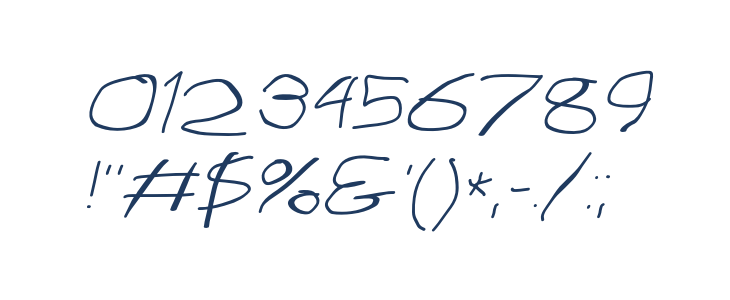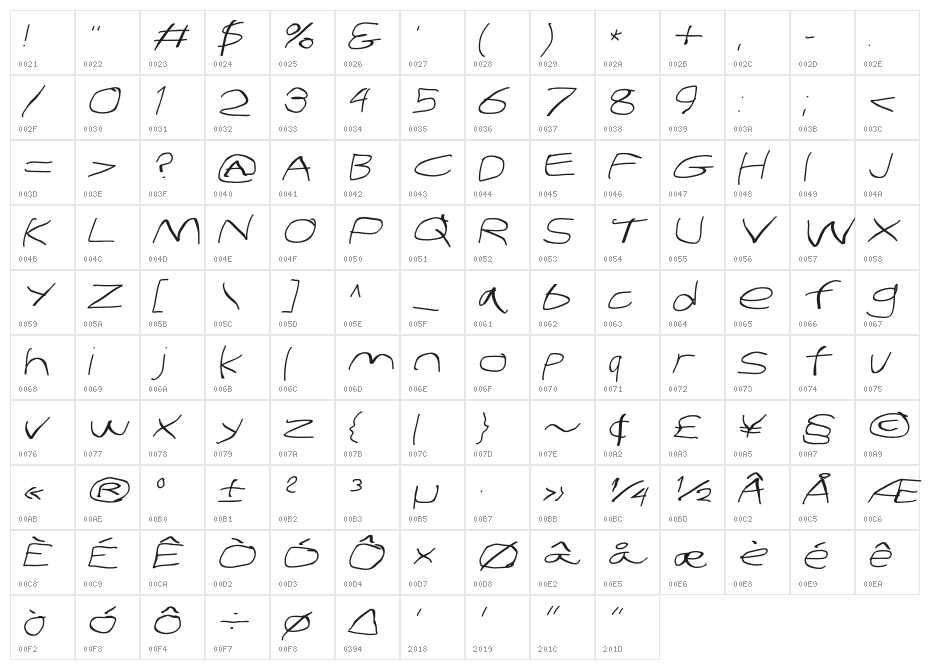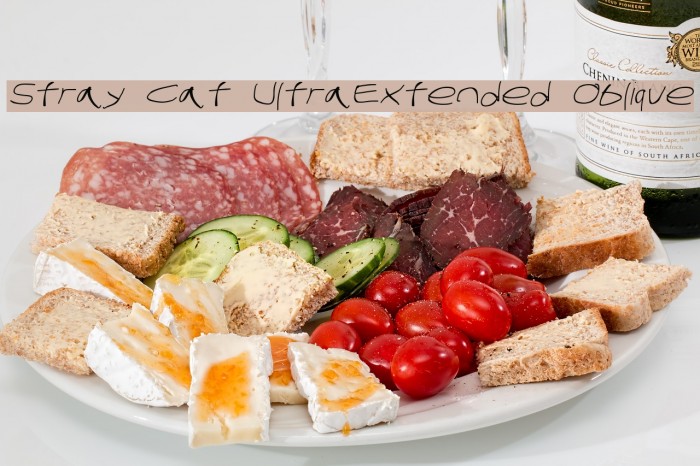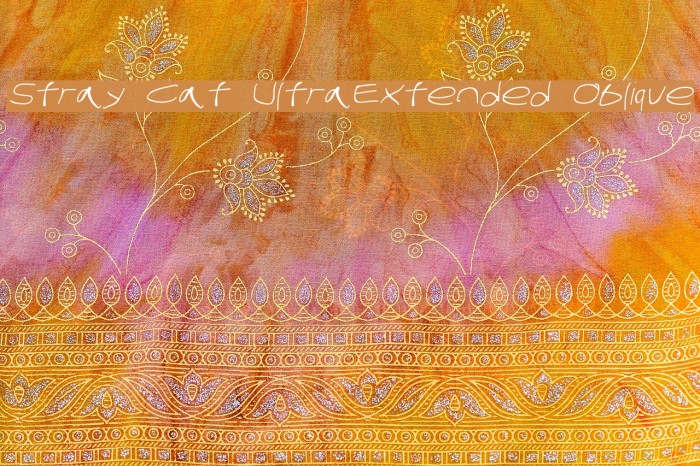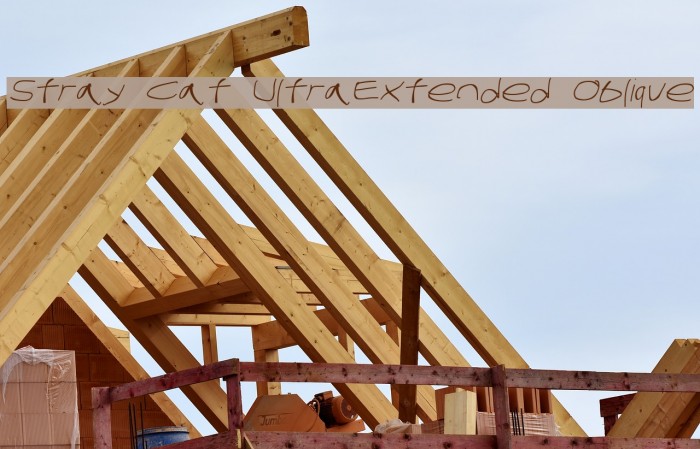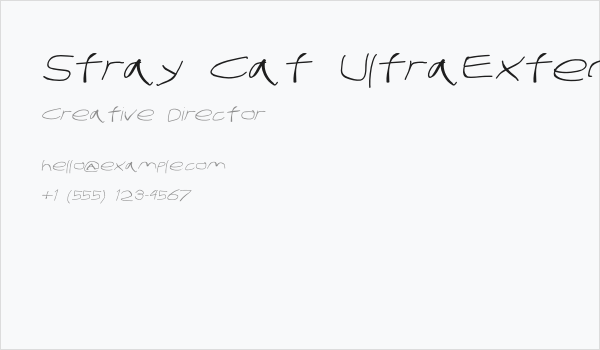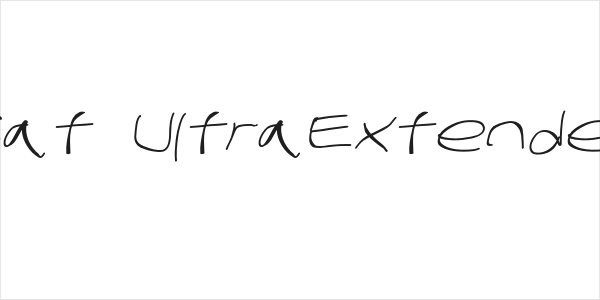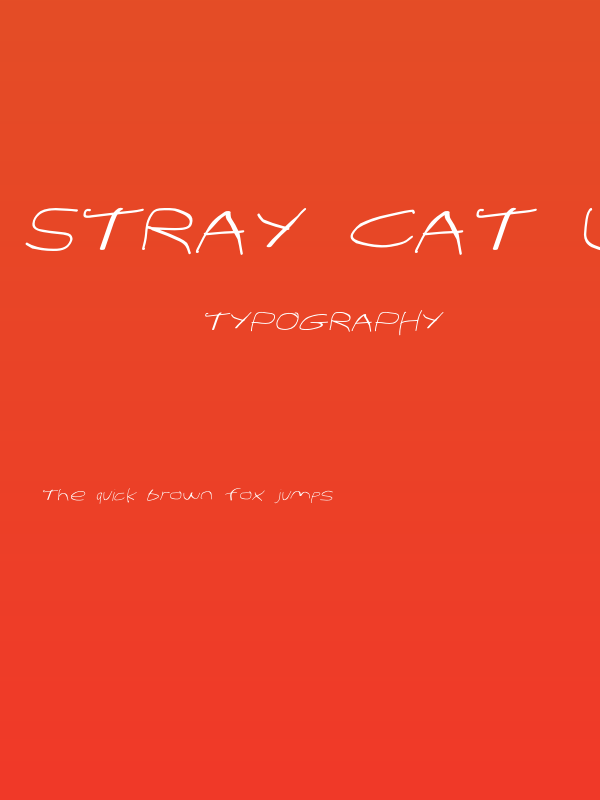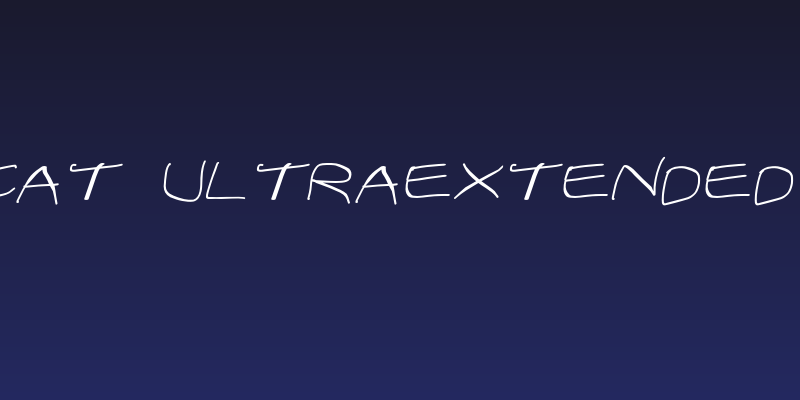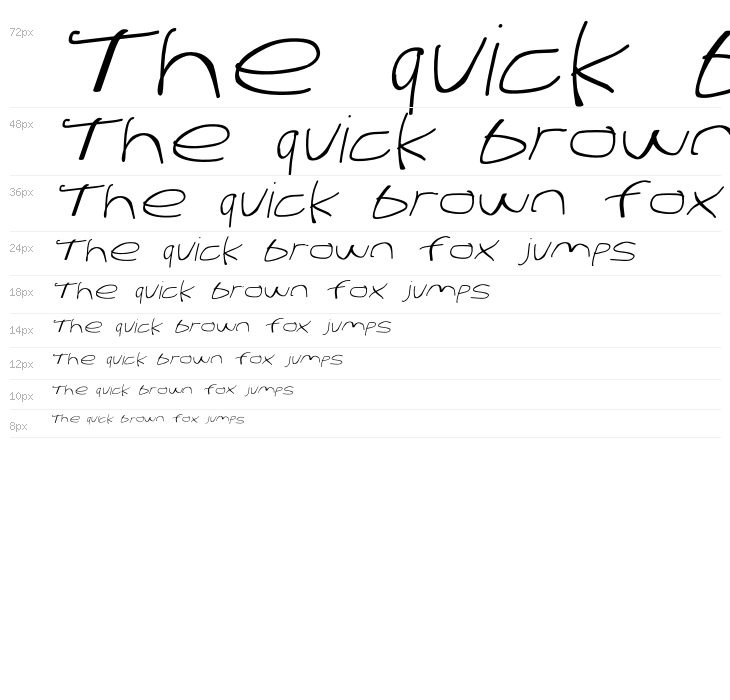
Stray Cat UltraExtended Oblique Font
Stray Cat UltraExtended Oblique Description
This font features a playful and dynamic handwritten style with an oblique slant, giving it a sense of movement and energy. The characters are ultra-extended, providing a wide and open feel. The strokes are uneven, mimicking a casual, hand-drawn appearance that adds a personal touch. The uppercase and lowercase letters maintain a consistent style, with a slight variation in stroke thickness that adds to the font's informal charm. The numerals and special characters follow the same aesthetic, ensuring a cohesive look across all text elements.
| Use Case | Logos, Headlines, Informal Text |
| Proposed Projects | Ideal for creative projects such as greeting cards, invitations, children's books, and playful branding. |